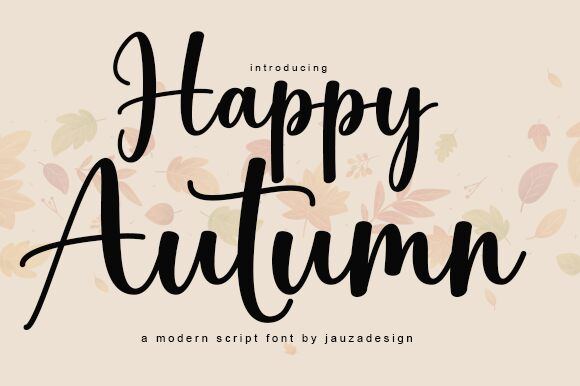
Happy Autumn
Happy Autumn font is a romantic handwritten font brought to you by Danar Nugroho. The design combines casual elegance with a natural flow that connects the letters in the most beautiful way possible. Its curves and strokes are legible, stylish, and a bit artistic which makes this wonderful resource worth using on your upcoming projects.
This free handwritten font is ideal for logos, product packaging, wedding designs, and quotes. Other ideas include stationery, social media posts, greeting cards, invitations, t-shirts, labels or even background images.